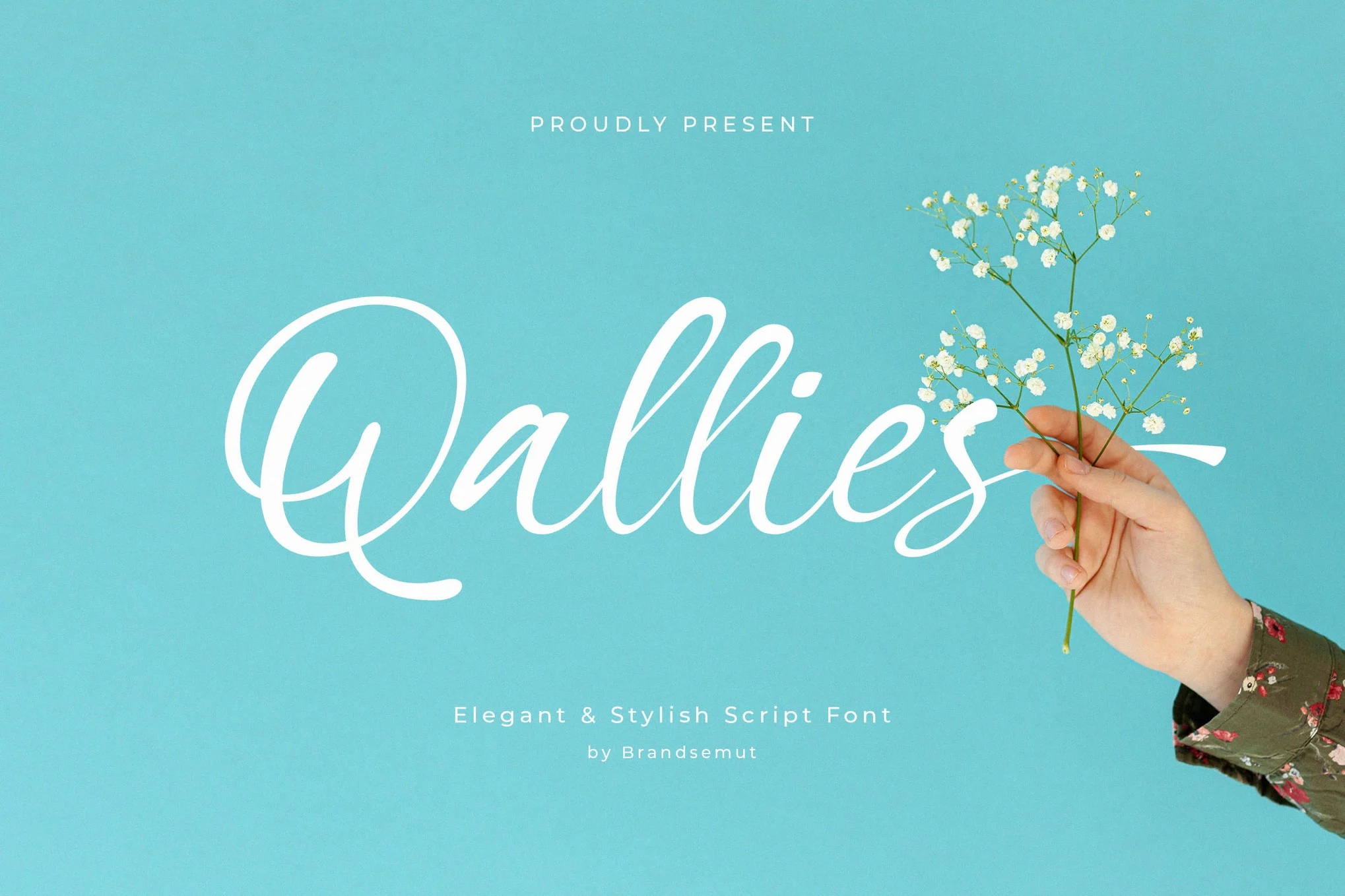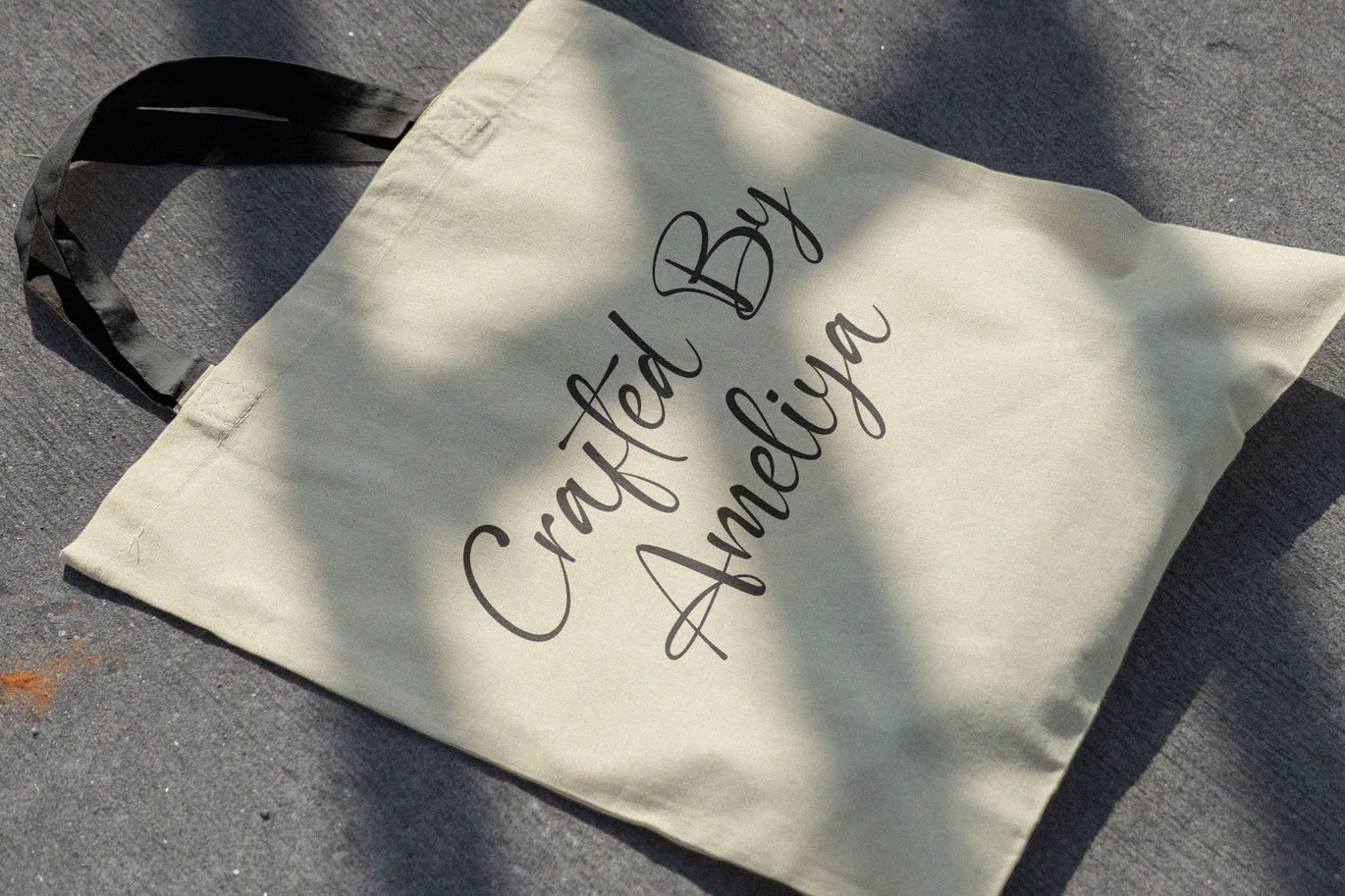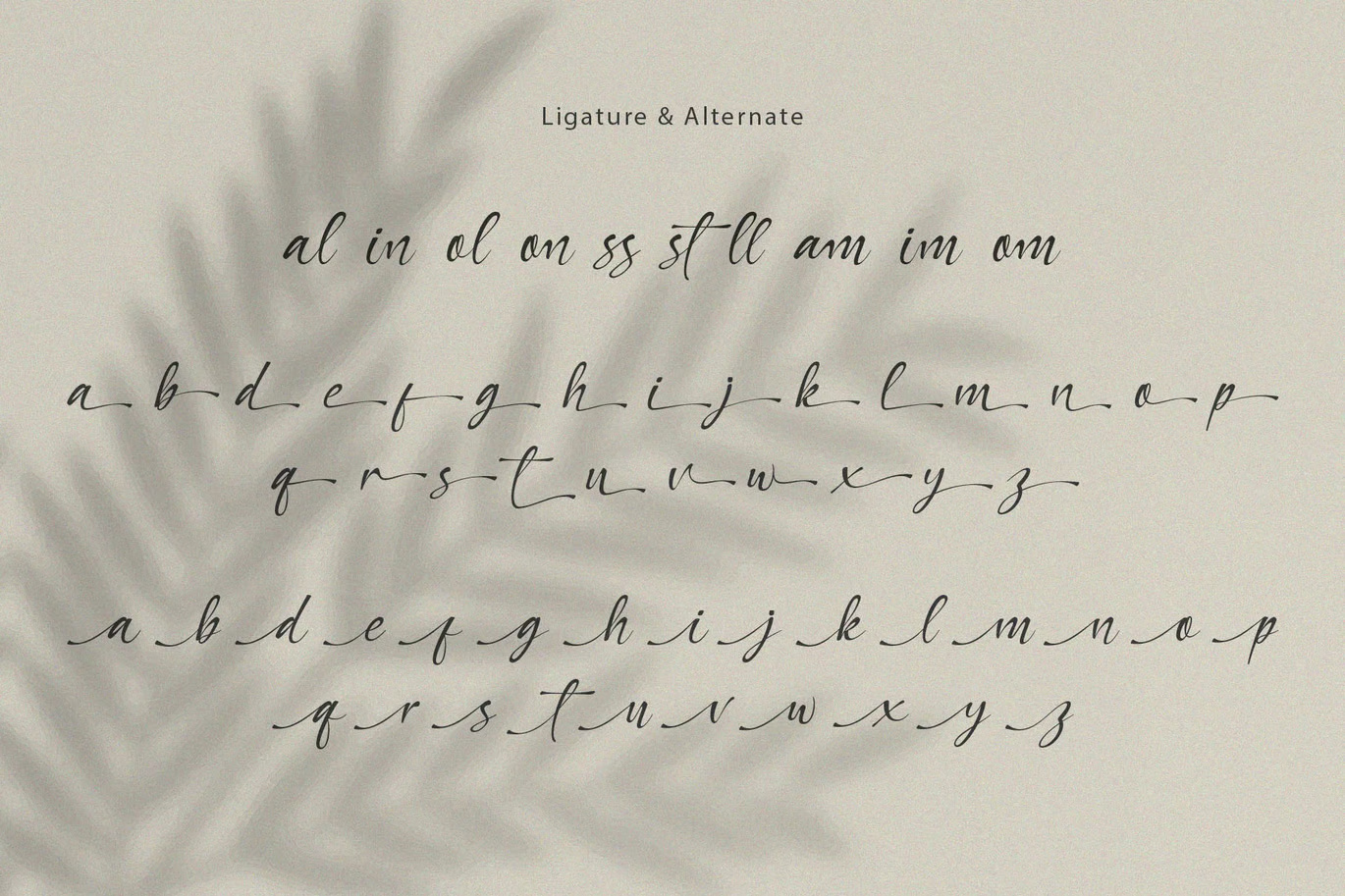
Qallies Elegant Handwritten Font
Introducing the new Qallies Script Font, an elegant and stylish handwritten script designed to add a touch of sophistication to your creative projects. With its beautiful curves and flowing lines, this font is perfect for invitations, logos, branding, and other design needs.
You will receive the full set of lowercase and uppercase letters, multilingual support, numerals, and punctuation, offering you versatility and flexibility in your designs. Whether you’re crafting a modern look or going for a classic feel, Qallies Script Font ensures a polished and refined aesthetic.
Qallies Elegant Handwritten Script Font
Qallies Elegant Handwritten Font